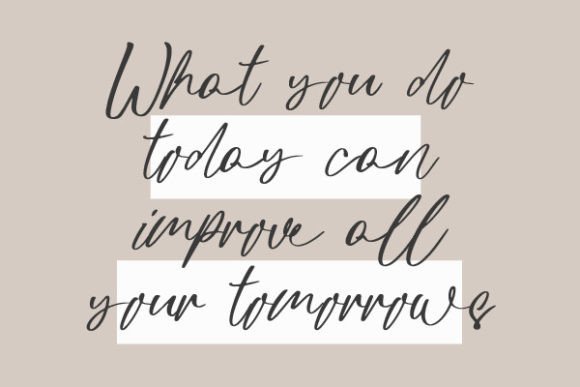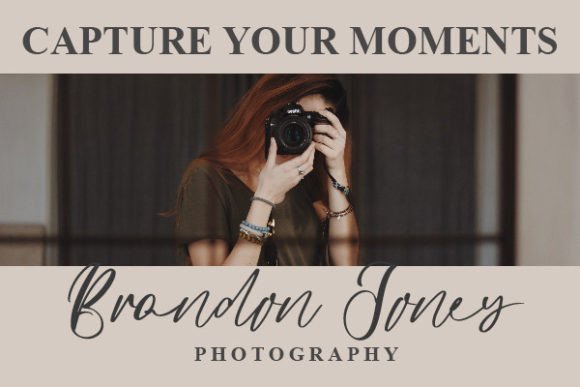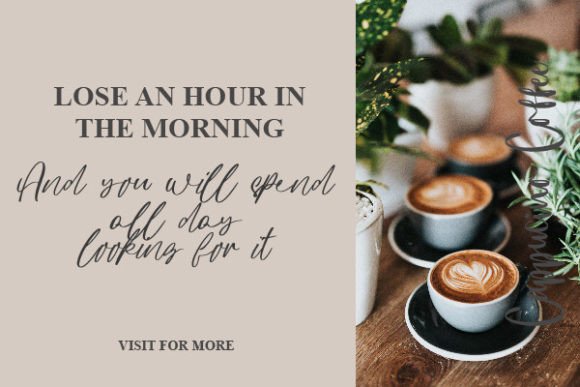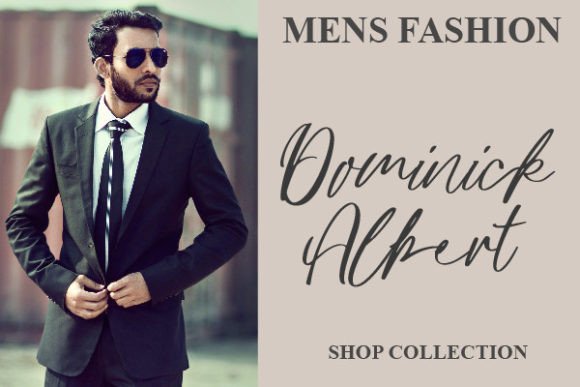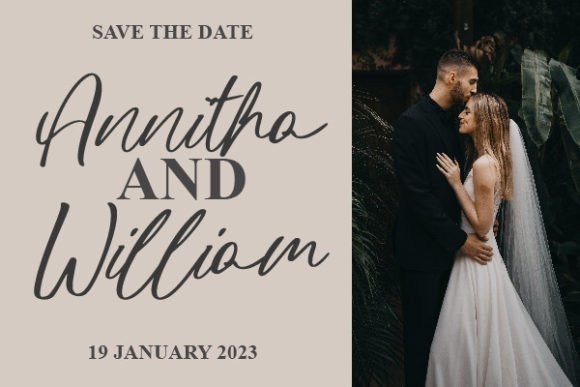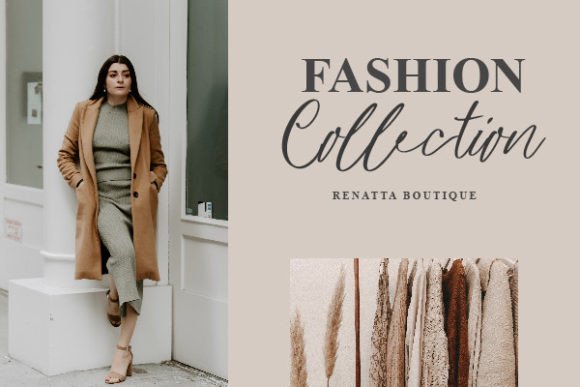
Introduction to Joanne Sinclair Font
Joanne Sinclair is a lovely and timeless handwritten font.
It is the best choice for creating eye-catching logos, branding, and quotes Every letter has a unique and beautiful touch, which will make your design come alive.
Key Features of Joanne Sinclair Font
Why Choose Joanne Sinclair Font?
Joanne Sinclair Font offers exceptional quality and versatility, making it a valuable addition to your design toolkit. Whether you’re creating for personal projects or commercial use, Joanne Sinclair Font delivers professional results.